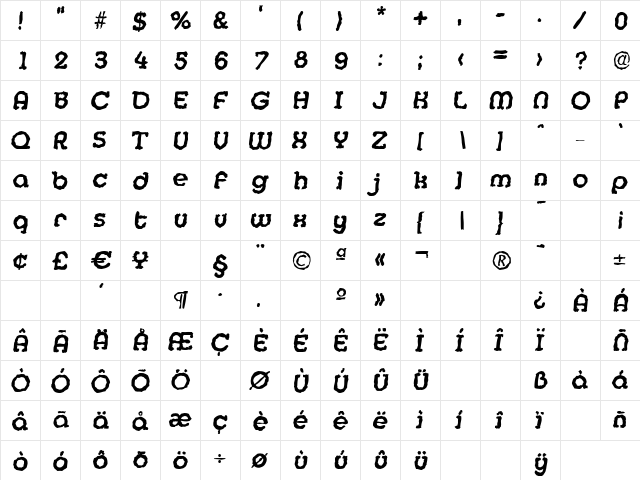
MexicoRandom BoldItalic Font Preview
MexicoRandom BoldItalic
Design Context for MexicoRandom Typeface
MexicoRandom is a composed and adaptable typeface that performs quietly and consistently across a wide range of design contexts. The slanted form adds forward momentum and visual energy. The heavy weight commands attention and anchors typographic hierarchies.